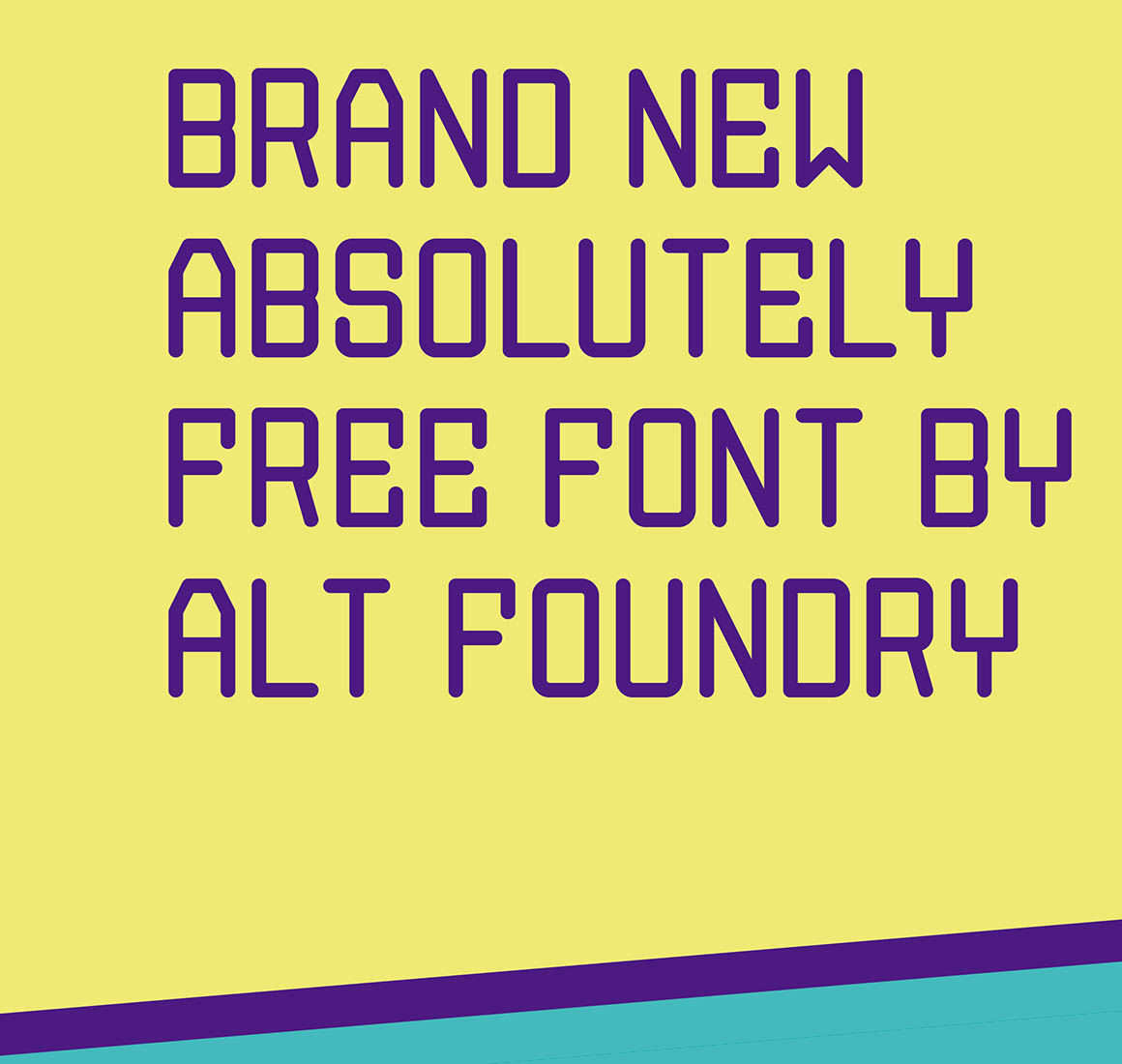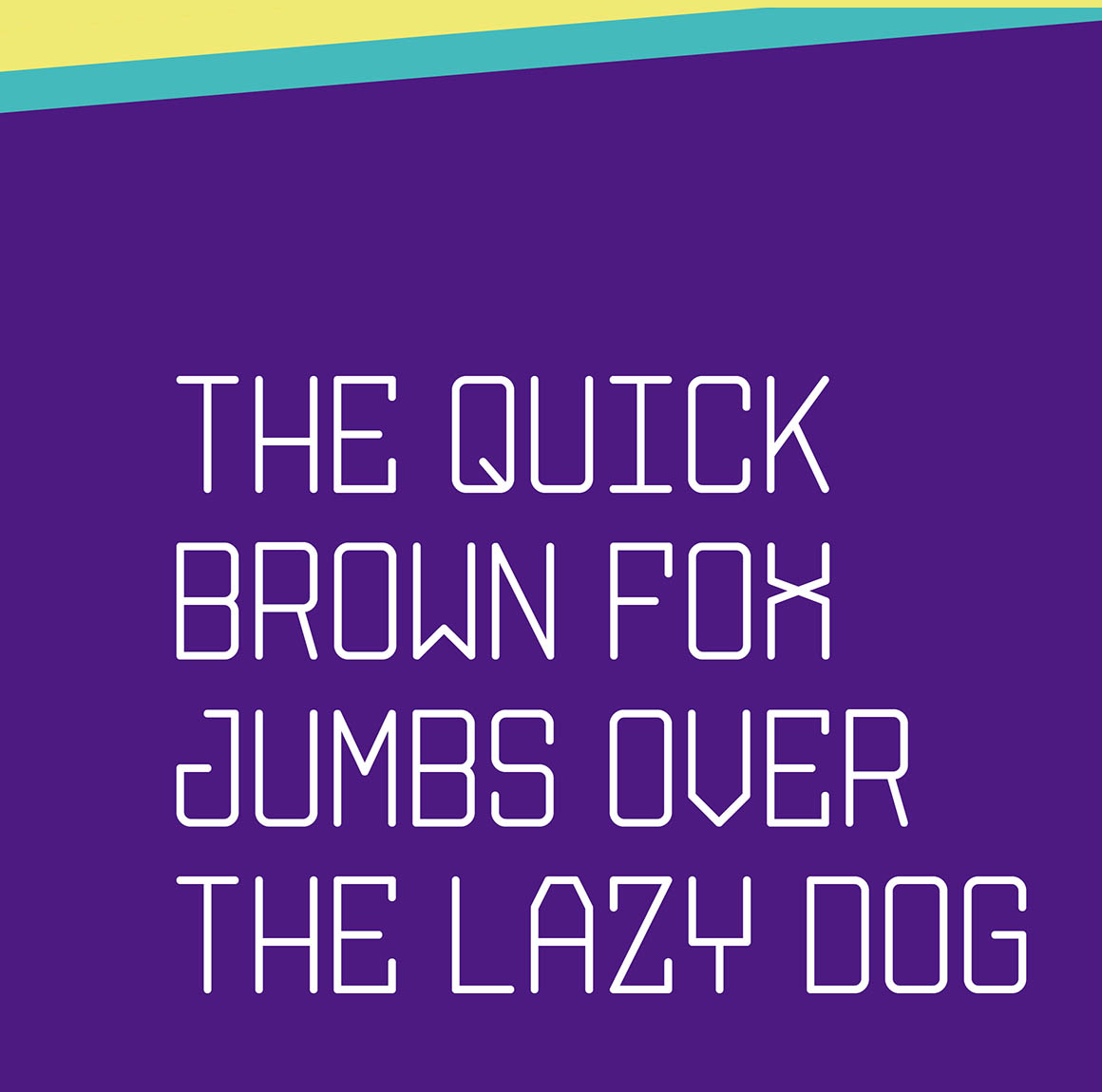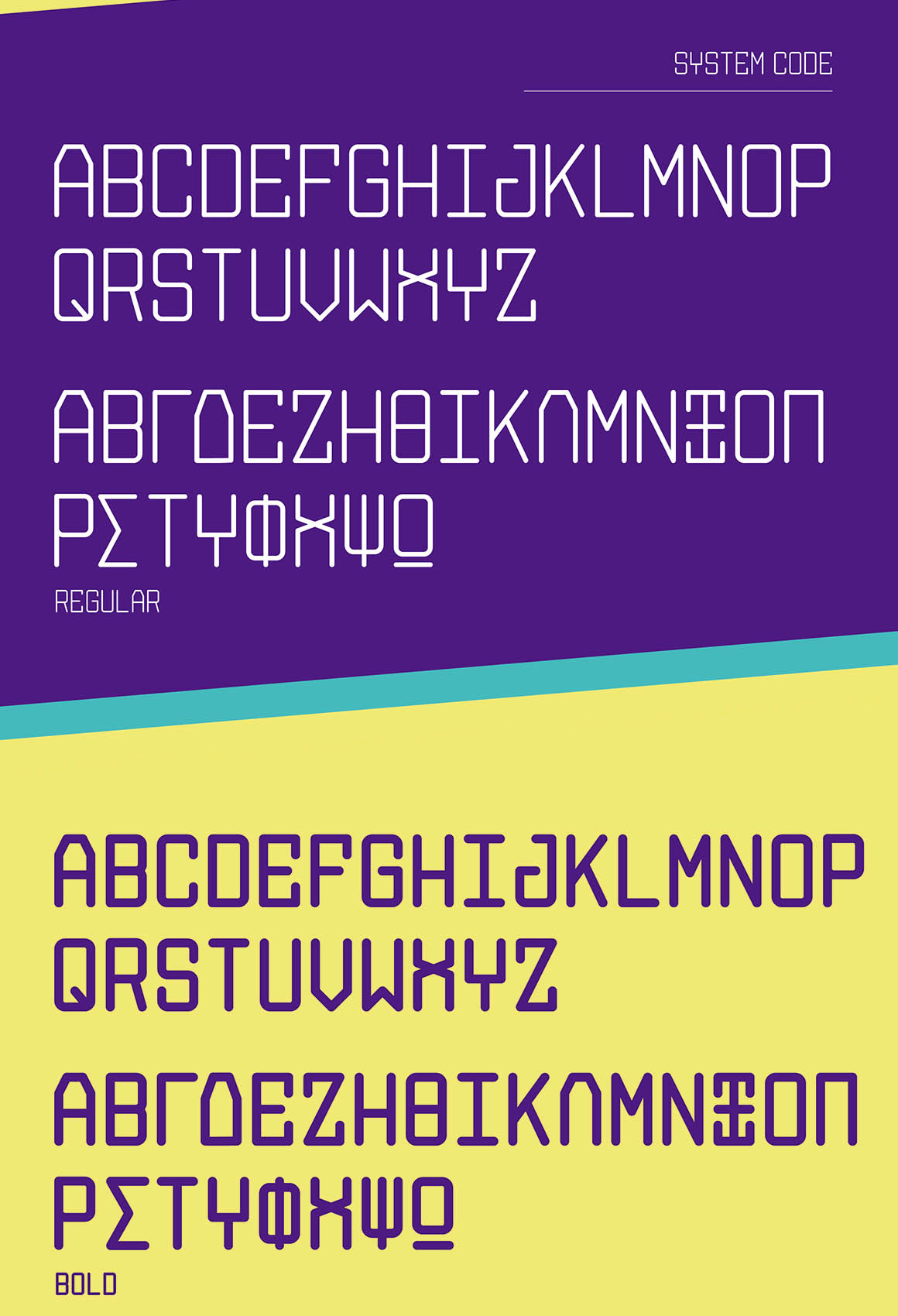
System Code – Free Font
This modern or futuristic sans serif font is from Andreas Leonidou. Great for your new modern style projects. Download and enjoy 😉